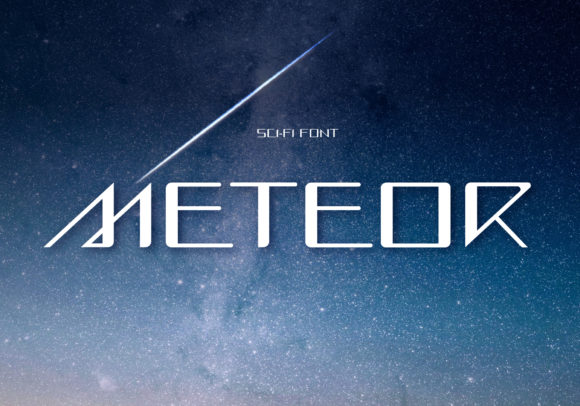
Get ready to take your digital creations to a whole new realm with Meteor Font, the ultimate font for all your digital endeavors. Designed by the renowned BB Type Studios, Meteor is a sans serif font that oozes futuristic vibes and exudes a striking presence in the world of typography.
With its sleek and sharp lines, Meteor Font effortlessly merges the beauty of classic typefaces with the excitement of modern design. Whether you're crafting captivating sci-fi stories, designing eye-catching e-sport advertisements, or creating awe-inspiring posters, Meteor Font is your perfect companion.
Step into the future of digital art with Meteor Font, a visual symphony that blends the boldness of the digital age with the elegance of timeless typography. Embrace the power of Meteor Font to transcend the ordinary and leave an indelible mark on your audience.
Soar through the cosmos of creativity with Meteor Font, the font that sets your digital projects apart. Dive into a world of endless possibilities, where your imagination knows no bounds. Experience the fusion of art and technology, where every word you type becomes a testament to your unique style and vision.